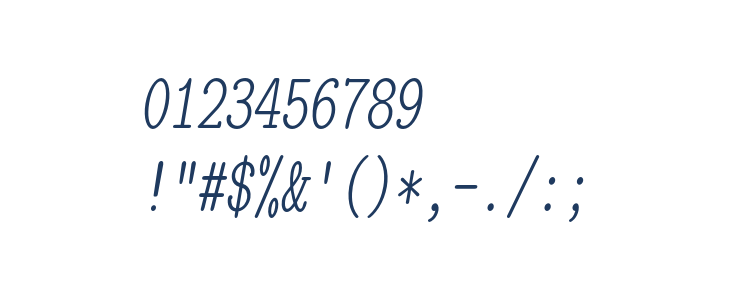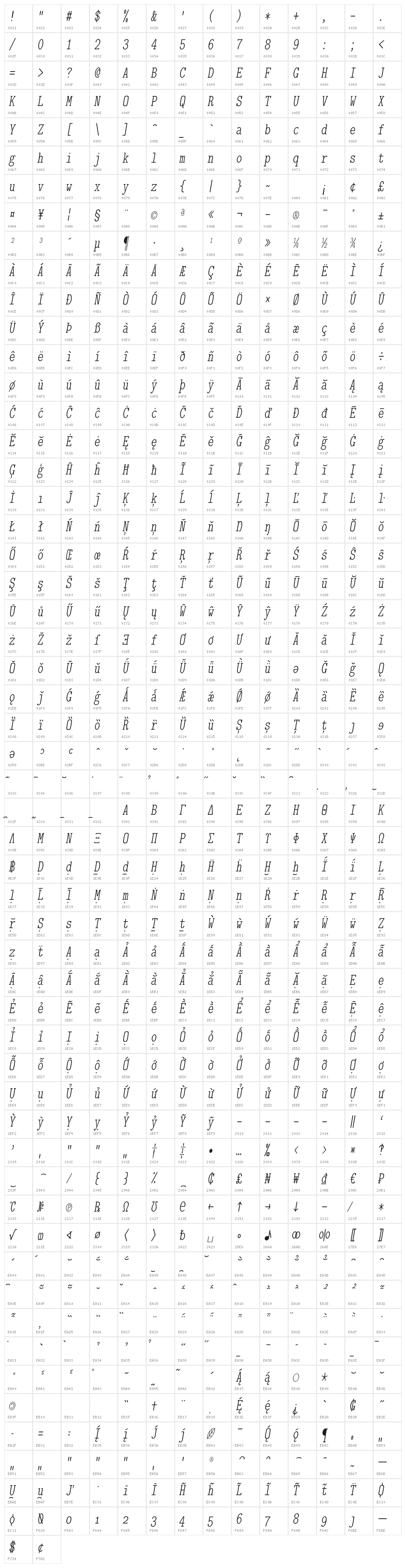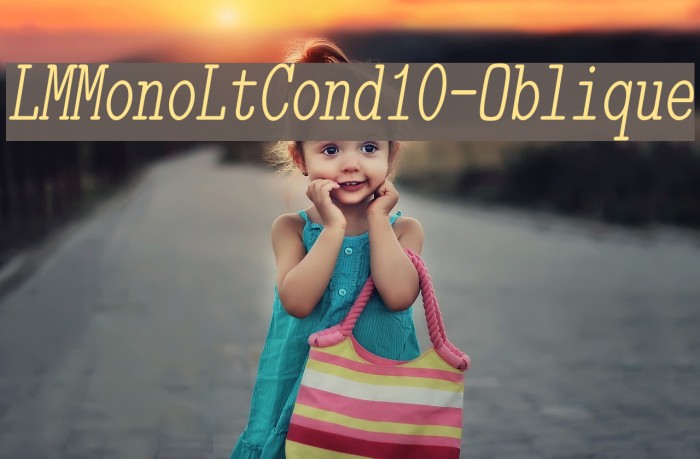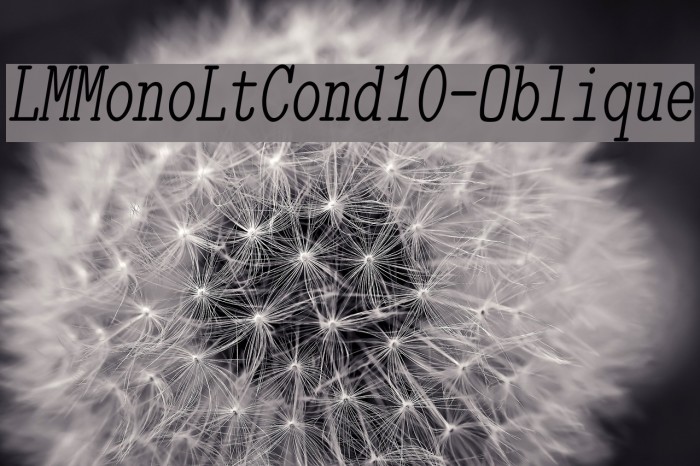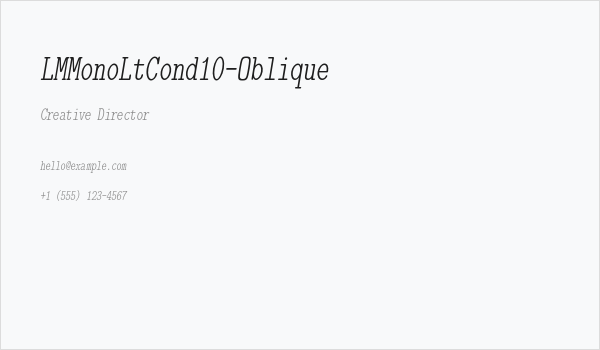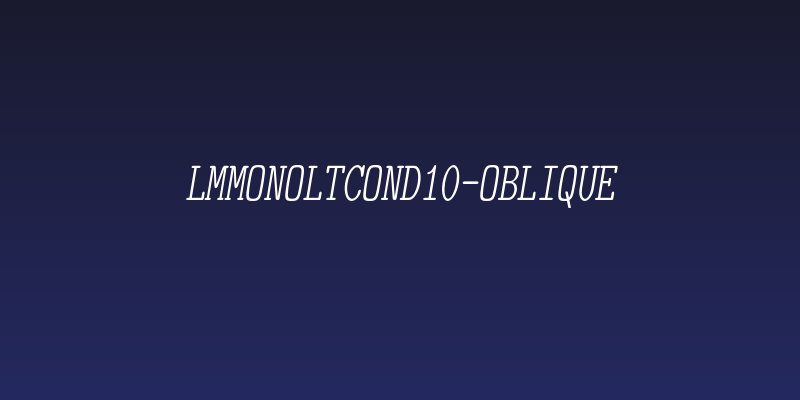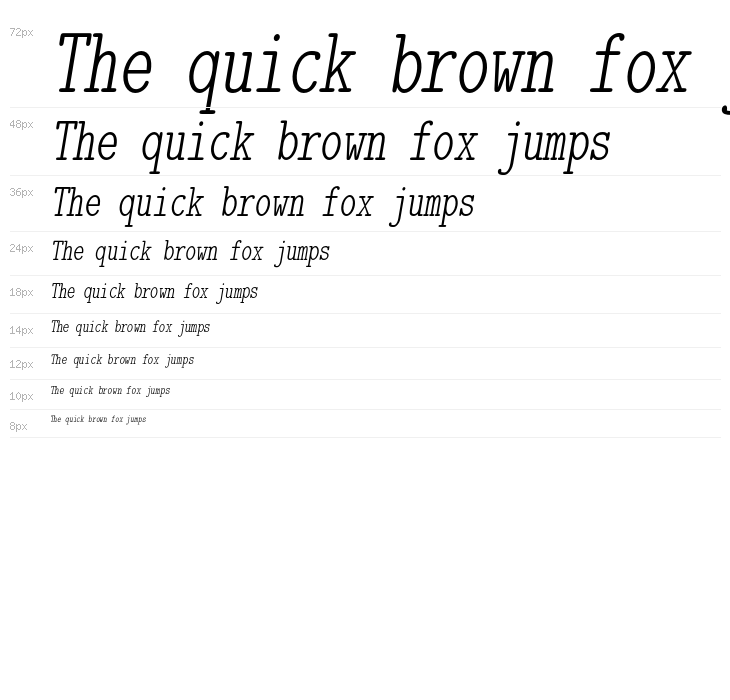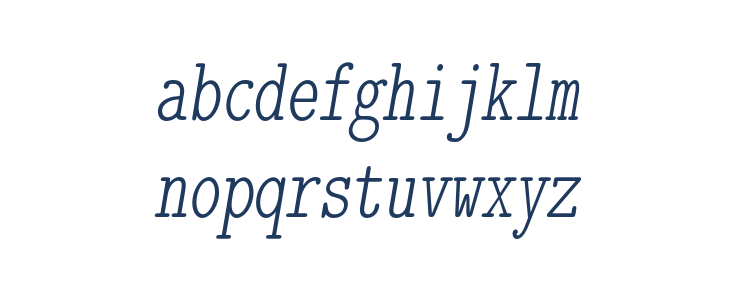
LMMonoLtCond10-Oblique Font
LMMonoLtCond10-Oblique Description
This font features a monospaced design with a light weight and condensed width. The characters are oblique, giving them a slight slant that adds a dynamic feel while maintaining readability. The strokes are consistent in thickness, providing a uniform appearance across all characters. The font includes a full set of uppercase and lowercase letters, numerals, and a variety of special characters, making it versatile for different uses. Its clean and structured form is ideal for technical documents or coding environments where clarity and precision are paramount.
| Use Case | Technical documents, Coding, Data tables |
| Proposed Projects | Perfect for coding, technical documentation, and any project requiring a clear, structured typeface. |